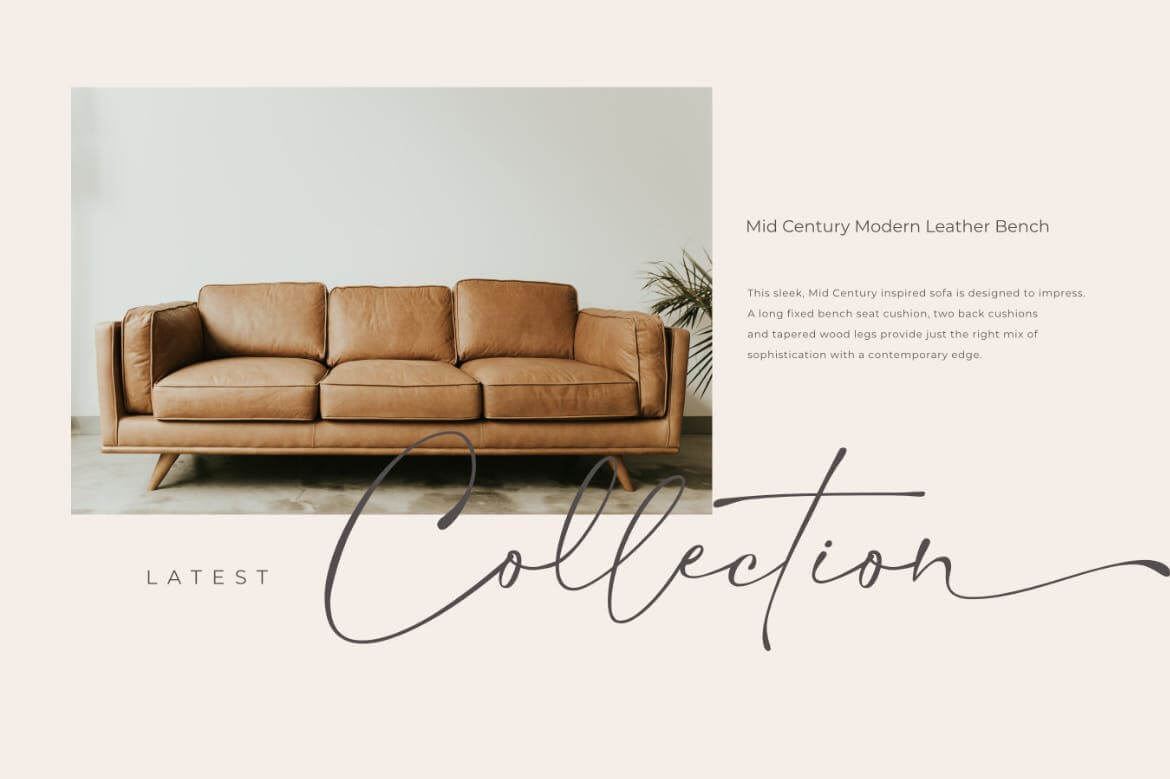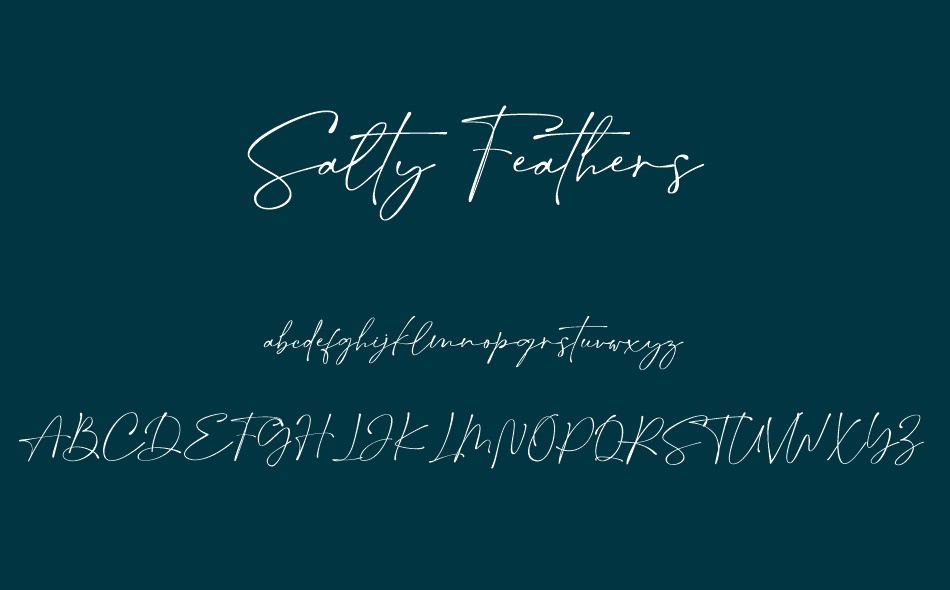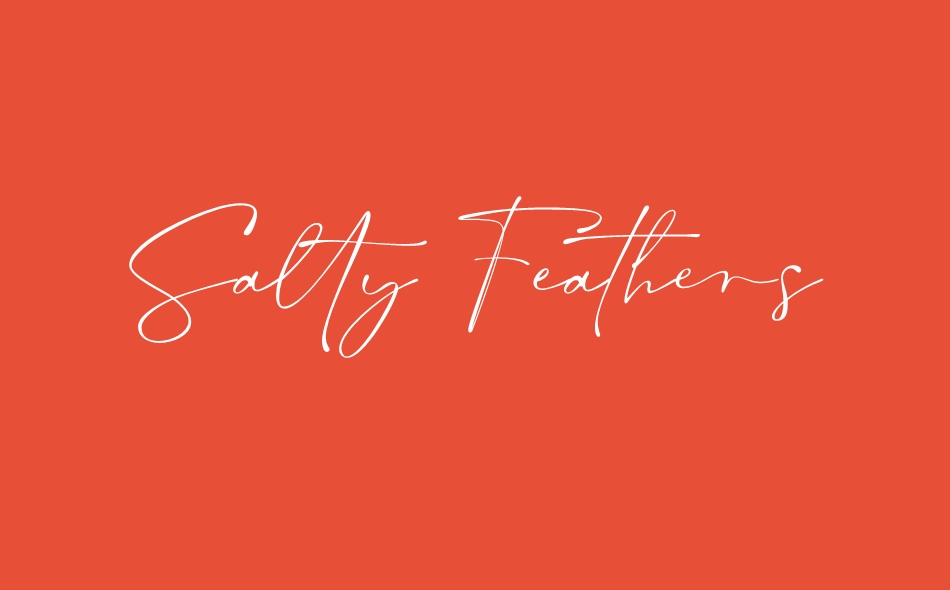
Salty Feathers Font
Salty Feathers Font - This font is pua encoded which means you can. Web salty feathers font download. Web its distinct and well rounded letters make this font a masterpiece. Salty feathers € by sans & sons. Web salty feathers includes full set of uppercase and lowercase letters, multilingual symbols, numerals,. 30,168 downloads (8 yesterday) free for personal.
Web salty feathers includes full set of uppercase and lowercase letters, multilingual symbols, numerals,. Web its distinct and well rounded letters make this font a masterpiece. Salty feathers € by sans & sons. 30,168 downloads (8 yesterday) free for personal. This font is pua encoded which means you can. Web salty feathers font download.
Salty feathers € by sans & sons. 30,168 downloads (8 yesterday) free for personal. Web its distinct and well rounded letters make this font a masterpiece. Web salty feathers includes full set of uppercase and lowercase letters, multilingual symbols, numerals,. Web salty feathers font download. This font is pua encoded which means you can.
Salty Feathers Font
Salty feathers € by sans & sons. Web salty feathers font download. This font is pua encoded which means you can. 30,168 downloads (8 yesterday) free for personal. Web its distinct and well rounded letters make this font a masterpiece.
Salty Feathers font by Sans & Sons FontRiver
This font is pua encoded which means you can. Web salty feathers font download. 30,168 downloads (8 yesterday) free for personal. Salty feathers € by sans & sons. Web salty feathers includes full set of uppercase and lowercase letters, multilingual symbols, numerals,.
Salty Feathers font font
Web its distinct and well rounded letters make this font a masterpiece. This font is pua encoded which means you can. Salty feathers € by sans & sons. 30,168 downloads (8 yesterday) free for personal. Web salty feathers font download.
Salty Feathers Font › Fontesk
Web its distinct and well rounded letters make this font a masterpiece. Web salty feathers includes full set of uppercase and lowercase letters, multilingual symbols, numerals,. Web salty feathers font download. 30,168 downloads (8 yesterday) free for personal. This font is pua encoded which means you can.
Salty Feathers Font
This font is pua encoded which means you can. Web salty feathers includes full set of uppercase and lowercase letters, multilingual symbols, numerals,. Salty feathers € by sans & sons. 30,168 downloads (8 yesterday) free for personal. Web its distinct and well rounded letters make this font a masterpiece.
Salty Feathers Elegant Luxury Font
Salty feathers € by sans & sons. Web salty feathers font download. This font is pua encoded which means you can. 30,168 downloads (8 yesterday) free for personal. Web its distinct and well rounded letters make this font a masterpiece.
Salty Feathers font Font Tr
Web salty feathers includes full set of uppercase and lowercase letters, multilingual symbols, numerals,. Salty feathers € by sans & sons. Web its distinct and well rounded letters make this font a masterpiece. 30,168 downloads (8 yesterday) free for personal. Web salty feathers font download.
Salty Feathers Font
Web salty feathers includes full set of uppercase and lowercase letters, multilingual symbols, numerals,. This font is pua encoded which means you can. Web salty feathers font download. Salty feathers € by sans & sons. Web its distinct and well rounded letters make this font a masterpiece.
Salty Feathers Elegant Luxury Font (923686) Handwritten Font Bundles
This font is pua encoded which means you can. Web salty feathers font download. Salty feathers € by sans & sons. Web its distinct and well rounded letters make this font a masterpiece. Web salty feathers includes full set of uppercase and lowercase letters, multilingual symbols, numerals,.
Salty Feathers Font Dafont Free
Web salty feathers font download. Salty feathers € by sans & sons. Web salty feathers includes full set of uppercase and lowercase letters, multilingual symbols, numerals,. Web its distinct and well rounded letters make this font a masterpiece. This font is pua encoded which means you can.